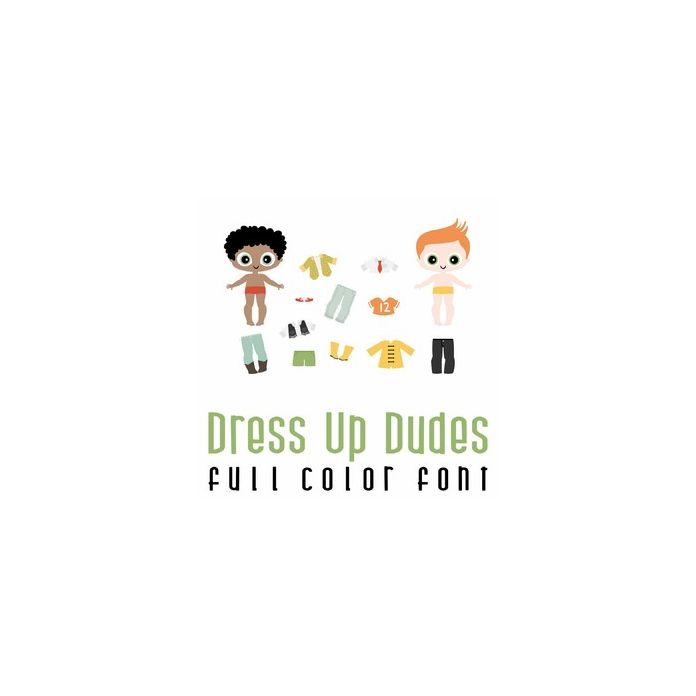
This fun full color doodlebat font features 28 dress up dudes. Perfect for cards, crafts, gifts, decor, scrap book pages, planner stickers and more! Images are A-Z and 0-1.